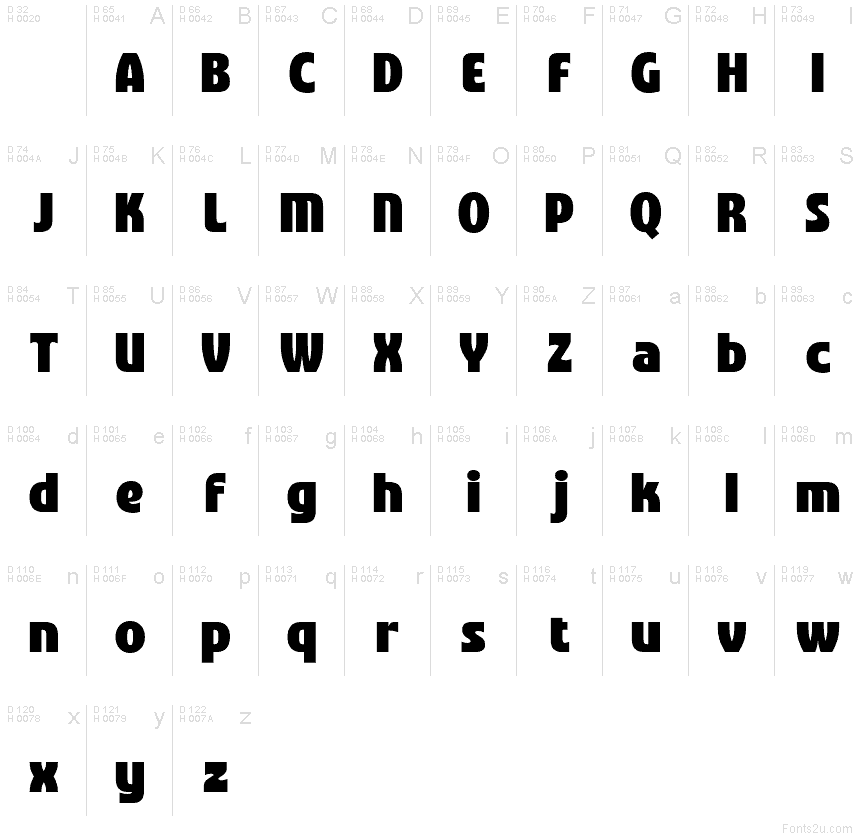
CS Asthon Regular Demo
CS Asthon font by Craft Supply Co. is a free bold sans serif font. It solves a common dilemma: you need big, high-contrast impact without the shouty harshness. Thick strokes, rounded terminals, and smooth, oval counters give it a cushioned, confident feel—like a heavyweight poster letter sanded to a soft edge. The spacing is tight but steady, so words lock up into solid, readable blocks at a glance.
Using CS Asthon, headlines carry weight yet stay friendly. This free font shines on product packaging, sports branding, menu boards, event posters, thumbnails, and storefront signage. Its dense rhythm makes short phrases snap, while the gentle curves keep it approachable for lifestyle and tech alike. Pair with a light geometric sans for body copy, or add a bit of tracking when set in all caps to let the forms breathe.